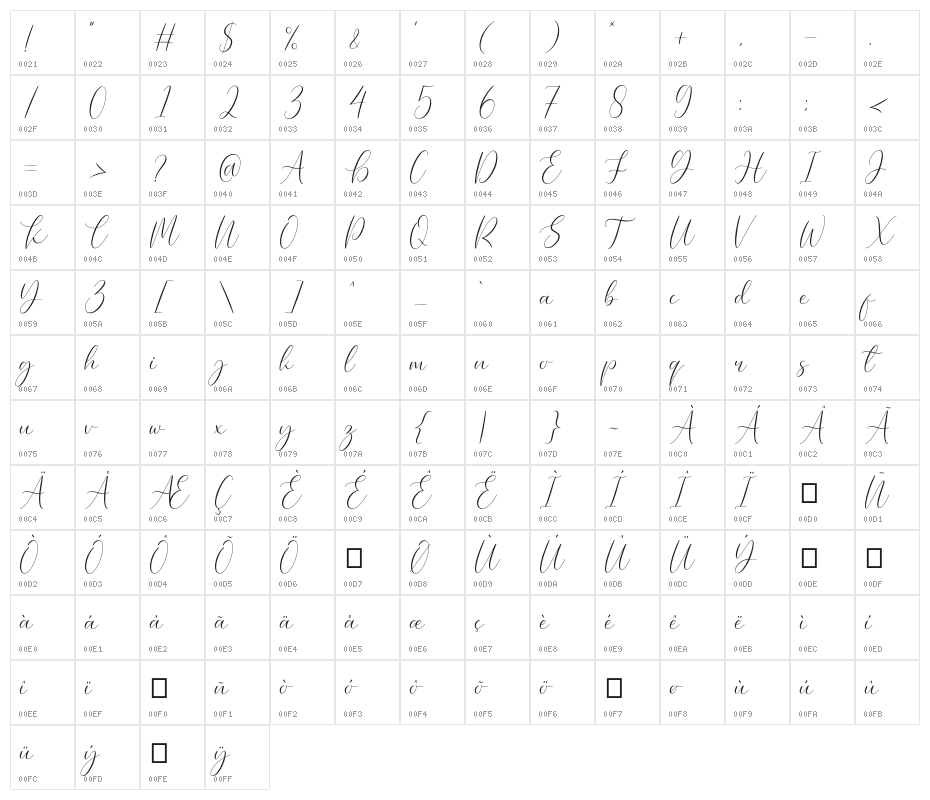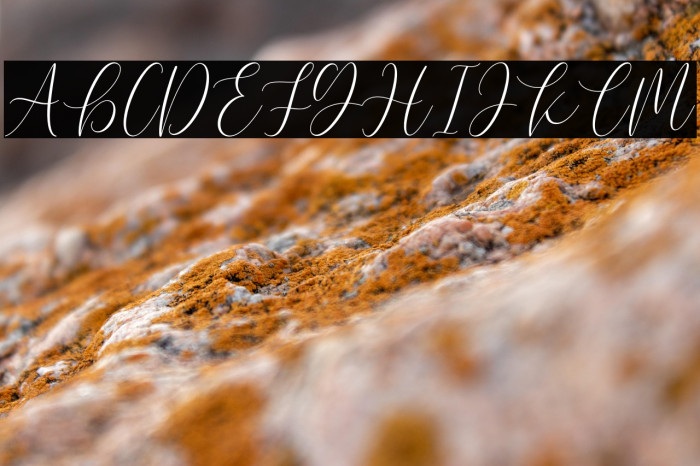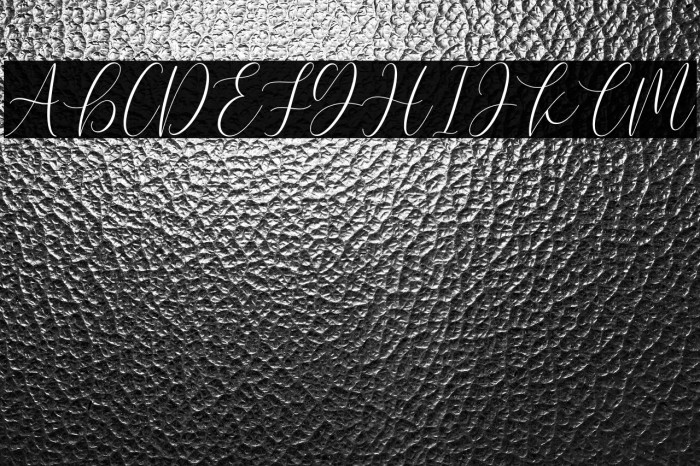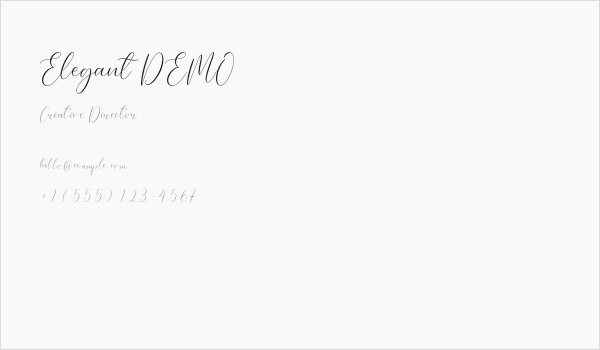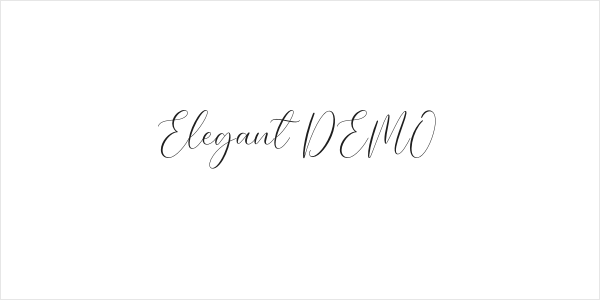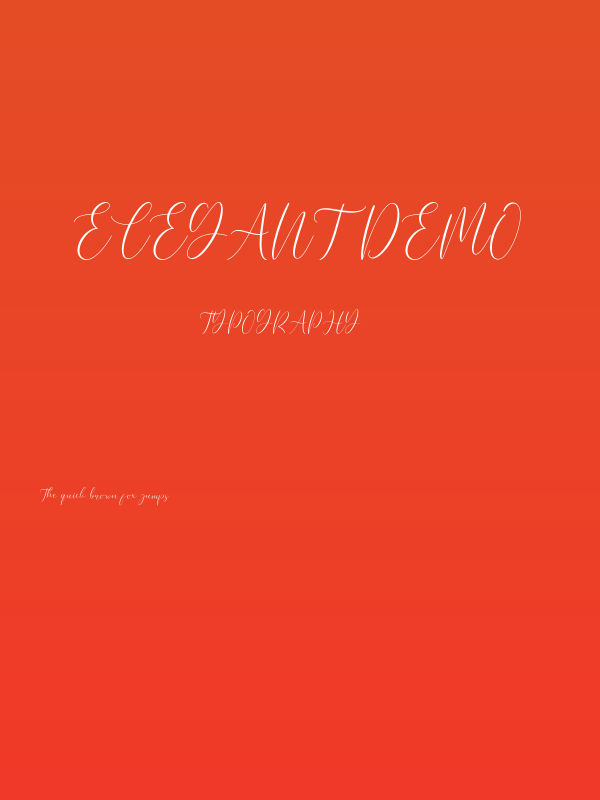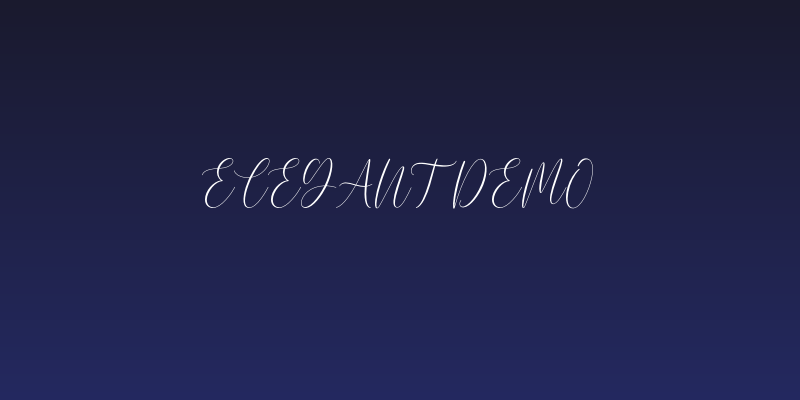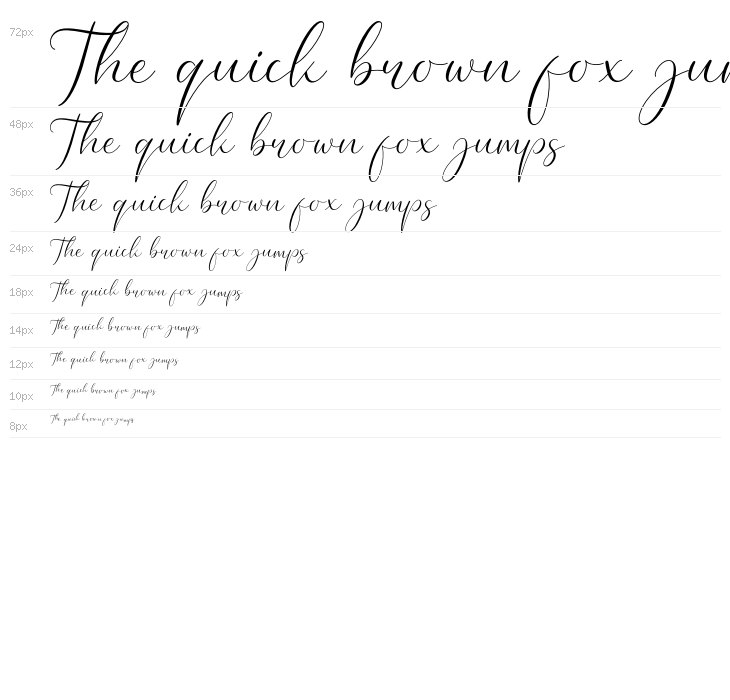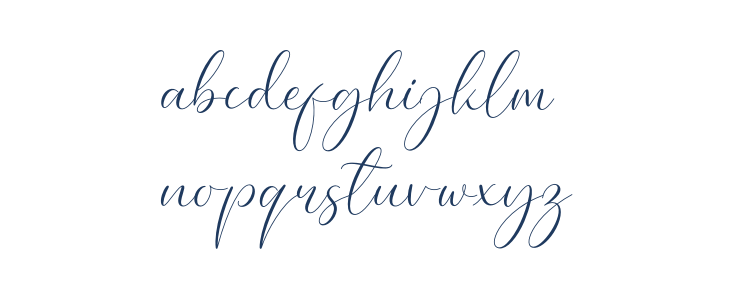
Elegant DEMO Font
Elegant DEMO Description
This font exudes elegance and sophistication with its flowing, cursive style. The characters are designed with a graceful, handwritten appearance, featuring smooth curves and delicate lines. The uppercase letters are tall and slightly narrow, while the lowercase letters maintain a consistent flow, enhancing readability. The numerals and special characters complement the overall aesthetic, maintaining the same fluidity and charm. This font is perfect for projects that require a touch of elegance and personal flair, such as wedding invitations, branding, and high-end product packaging.
| Use Case | Headlines, Invitations, Branding |
| Proposed Projects | Ideal for wedding invitations, luxury branding, and elegant product packaging. |